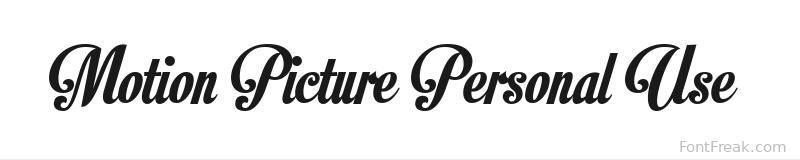
Motion Picture Personal Use
Motion Picture Personal Use is a distinctive display font designed by Mans Greback, available under a freeware license. This font embodies a retro cinematic style, evoking the glamour and excitement of classic movie titles. Characterized by its elegant, sweeping curves and dramatic flair, Motion Picture Personal Use features a medium stroke weight with moderate contrast, giving it a dynamic yet readable appearance. The letterforms are spaciously arranged, enhancing legibility while maintaining a stylish aesthetic.
Best suited for creative applications, this font shines in various settings, such as movie posters, where it can capture attention and convey a sense of drama. It also works wonderfully for wedding invitations, adding a touch of sophistication and romance. Additionally, restaurant menus can benefit from its unique flair, drawing diners in with its engaging style. Graphic designers and content creators will find this font ideal for branding projects that aim to evoke nostalgia and charm.
The target audience for Motion Picture Personal Use includes graphic designers, small business owners, and anyone looking to add a touch of theatrical elegance to their projects. Whether you're crafting promotional materials or personal invitations, this font offers versatility and character, making it a valuable addition to any designer's toolkit.
What truly sets Motion Picture Personal Use apart is its ability to blend vintage charm with contemporary design sensibilities. Its distinctive character not only makes it memorable but also ensures that any project utilizing this font will stand out in a crowded visual landscape. For those seeking a unique style, the Motion Picture Personal Use font free download is an excellent choice that brings a sense of excitement and elegance to any design.